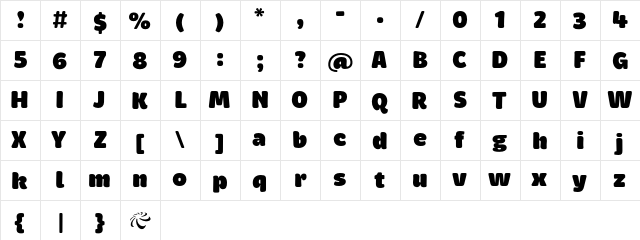
Brevia ExtraBlack Regular
| Foundry | Hannes von Dn |
| Designer | Hannes von Dn |
Design Context for Brevia ExtraBlack Typeface
Brevia ExtraBlack is a composed and adaptable typeface that performs quietly and consistently across a wide range of design contexts.